Lowercase
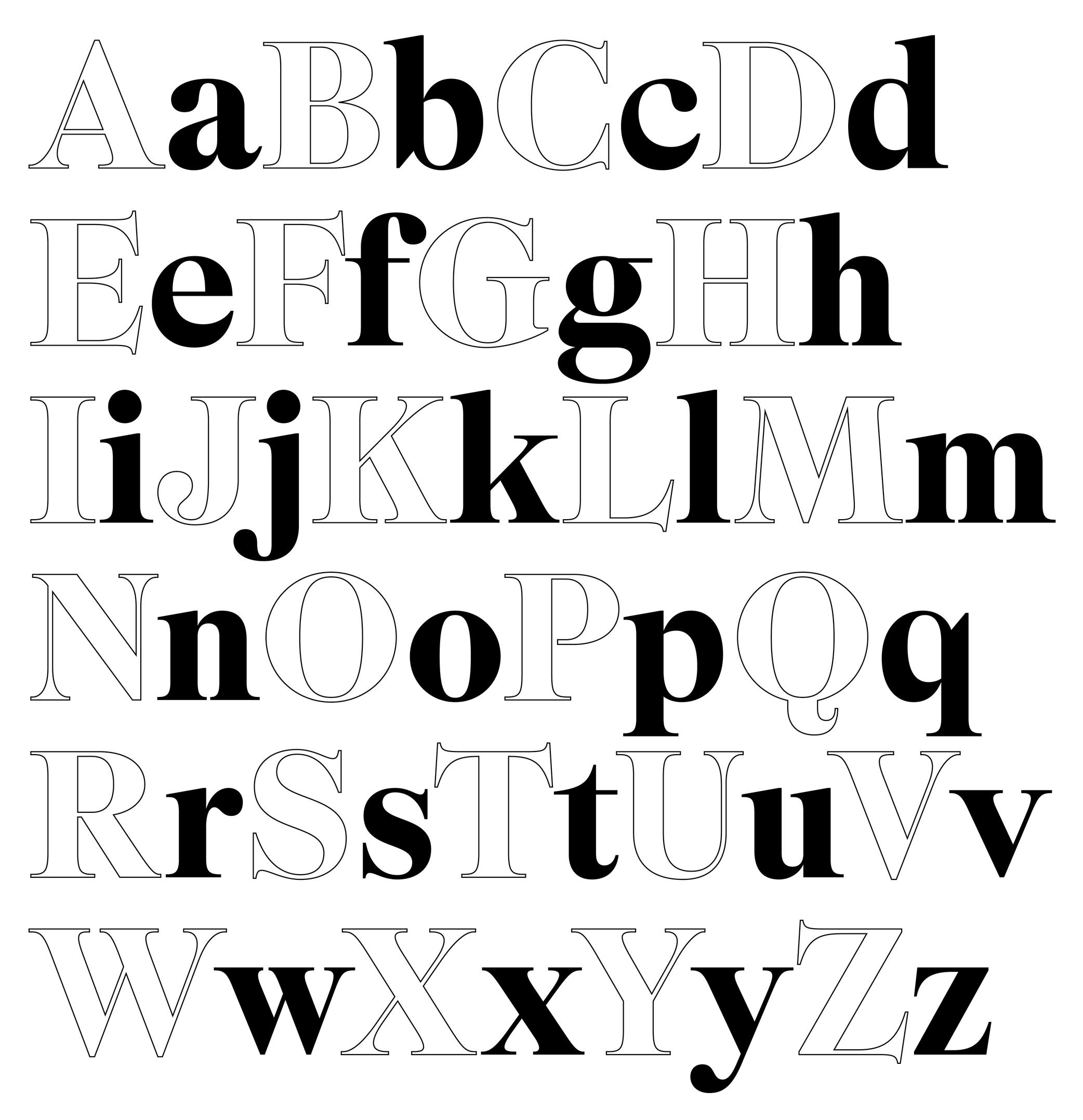
Also called minuscule.
Lowercase letters are the smaller forms of alphabetic letters, at least in scripts like Latin that have two cases. Lowercase letters are the opposite of uppercase letters (or majuscules/capitals).
HISTORY
The words ending with -case are a legacy from the era of printing with movable metal type. For the English-language, letters (metal pieces of type) from one font size were traditionally sorted into two wooden drawers or cases, one for each kind of characters. Capitals were in the kept in the upper case, and lowercase letters were on the bottom one. Later, single drawers would be used for an entire font. There, capitals were kept the upper section of the drawer, above the lowercase.
Even though they appeared later than their uppercase “parents,” lowercase letters went through many more iterations. Some of these evolutions were influenced by history (invention of new tools), cultures (preference for certain styles) and geography (influence of nearby cultures).